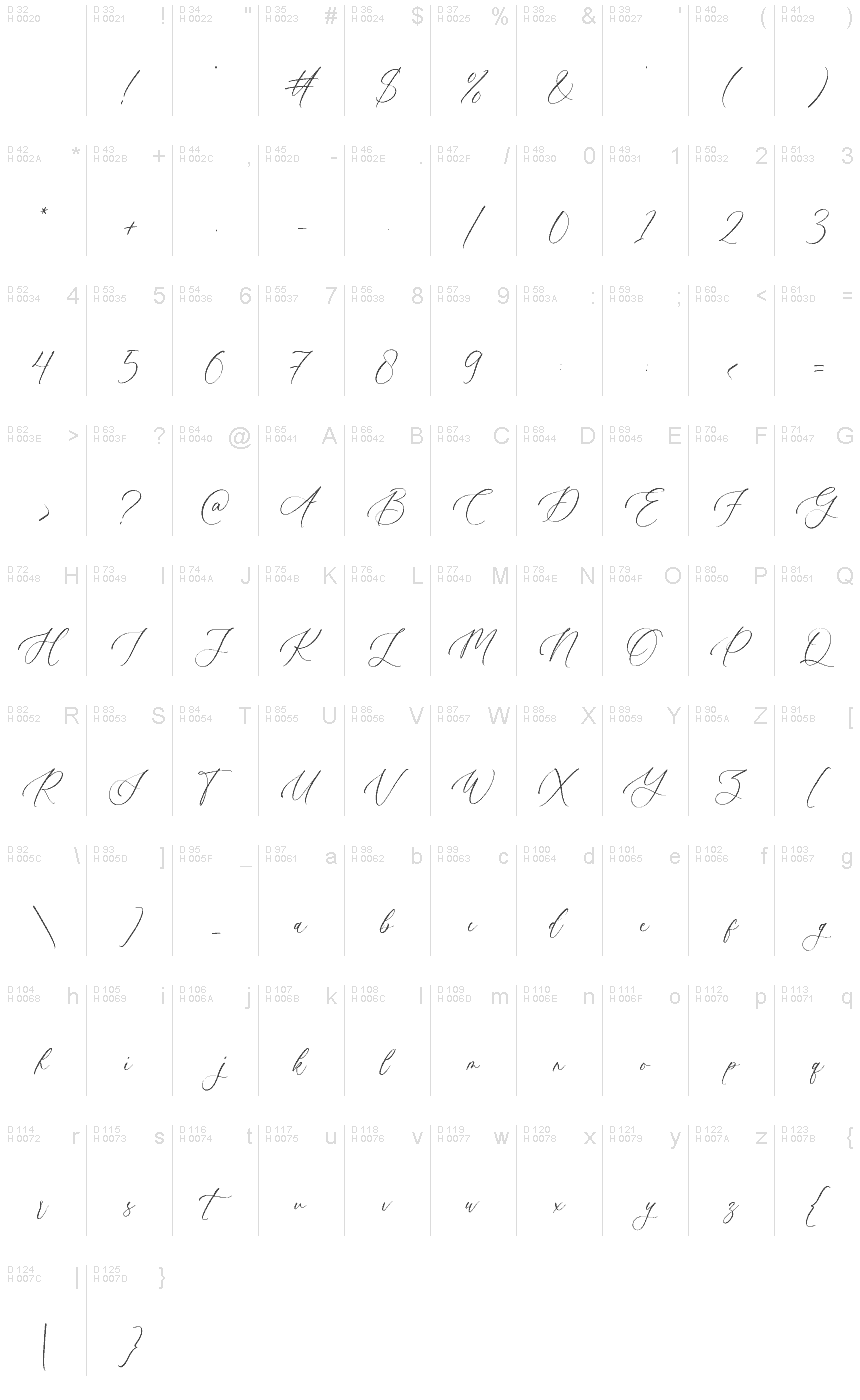
Silver Pearl
Simplicity, beauty, elegance. Three words that seem to sum up everything about Silver Pearl script font. Created by Aestherica Studio, this stylish font embodies sophistication and makes an immediate impression with its elegant features, fluid lines, and eye-catching calligraphy designs. Silver Pearl’s sophisticated design will transform any design, allowing you to present a truly remarkable project.